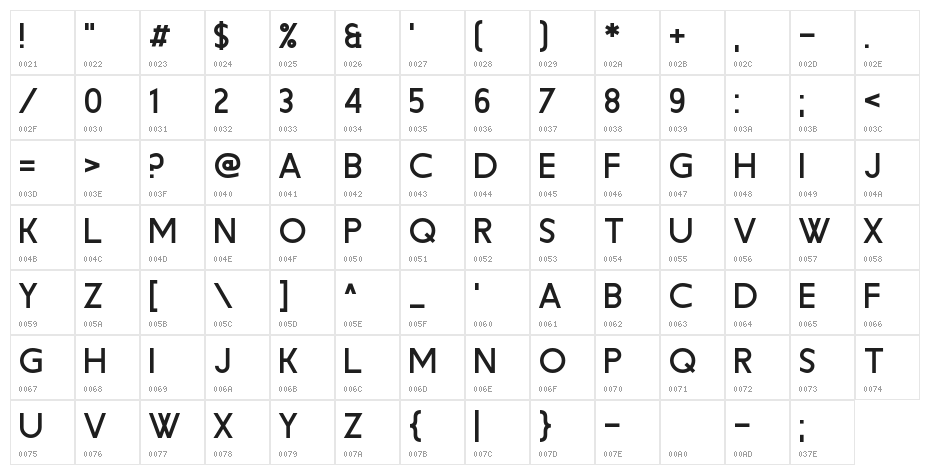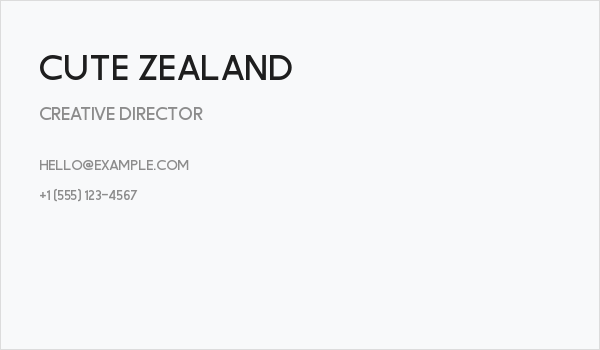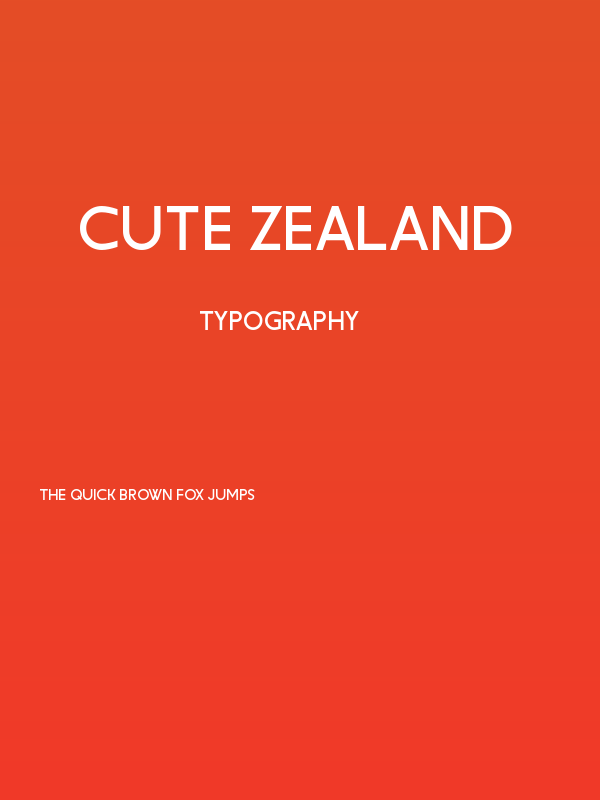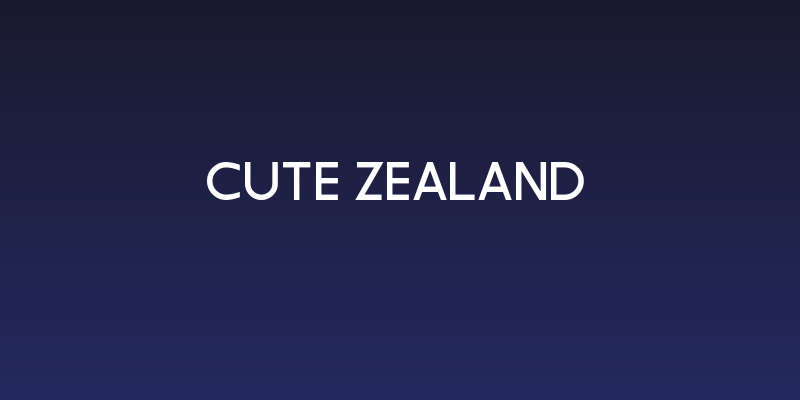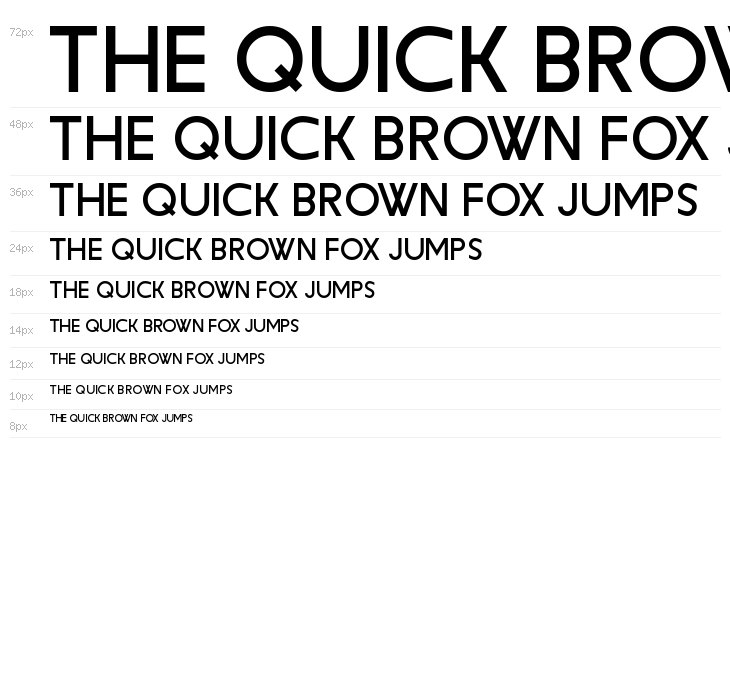
Cute Zealand Font
Cute Zealand Description
This typeface features a clean and modern sans-serif design, characterized by its geometric shapes and uniform stroke widths. The letters are well-proportioned, with a slightly condensed appearance that enhances readability. The uppercase and lowercase letters maintain a consistent style, providing a harmonious look across different text sizes. The numerals are clear and distinct, making them suitable for both display and body text. Special characters are included, offering versatility for various design needs. The overall aesthetic is sleek and professional, making it ideal for contemporary design projects.
| Proposed Projects | Ideal for branding, web design, advertising, and editorial projects. |